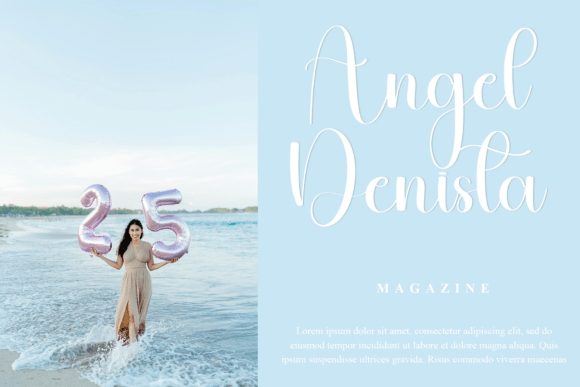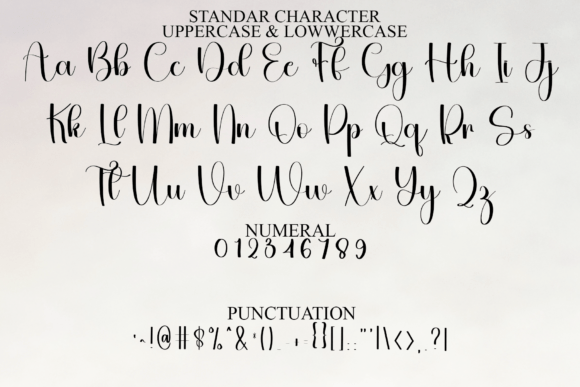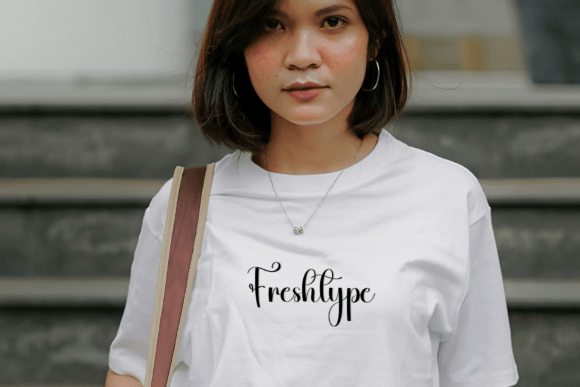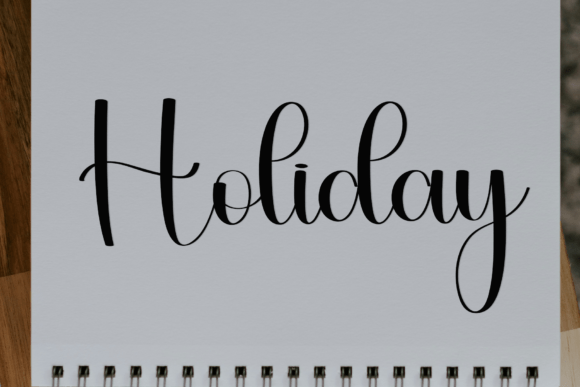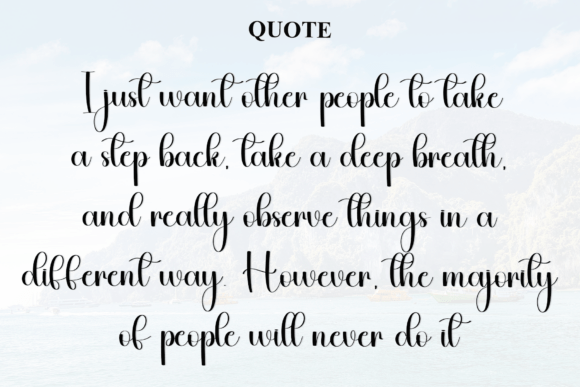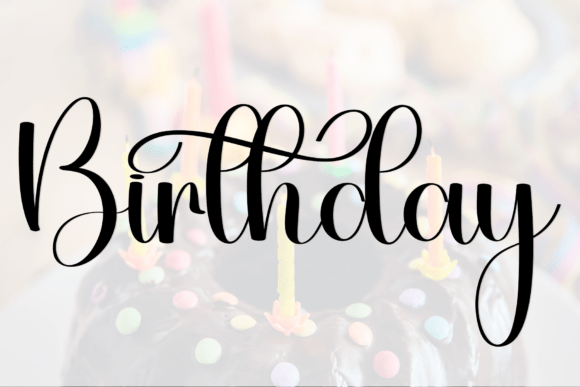
Introducing the Elegance of Birthday Western Font
In the world of typography, few fonts manage to capture the essence of elegance and sophistication as effectively as the Birthday Western Font. This beautiful script font is meticulously designed with graceful swashes and fluid strokes, bringing a touch of luxury to every word it writes. Whether you’re working on wedding invitations, crafting a brand identity, designing a logo, or curating social media posts, this font is sure to elevate your project with its unique blend of modern calligraphy and classic charm.
The Characteristics of Birthday Western Font
So, what makes the Birthday Western Font stand out from the myriad of script fonts available today? The answer lies in its stylish swashes and fluid strokes. These elements add a romantic and artistic flair to any text, making it feel personal and luxurious. The fluidity of the strokes ensures that the text flows smoothly, creating a visually appealing reading experience. Meanwhile, the swashes provide a decorative touch that can be customized to fit the tone and style of your project.
The versatility of the Birthday Western Font is one of its most compelling features. It’s perfect for:
- Wedding Invitations: Add a touch of elegance and romance to your wedding invitations, setting the tone for a sophisticated and memorable event.
- Branding and Logos: Elevate your brand with a luxurious and distinctive font that captures the essence of your business.
- Social Media Posts: Stand out on social media with beautifully crafted text that draws the eye and engages the reader.
- Stationery and Greeting Cards: Add a personal touch to your stationery and greeting cards, making them feel more special and heartfelt.
Blending Modern Calligraphy with Classic Charm
The Birthday Western Font achieves a remarkable balance between modern calligraphy and classic charm. The modern calligraphic elements ensure that the font feels contemporary and fresh, while the classic charm provides a timeless quality that prevents it from feeling trendy or dated. This balance makes the font incredibly versatile, suitable for projects that require a touch of sophistication and elegance.
Tips for Using Birthday Western Font Effectively
To make the most of the Birthday Western Font, consider the following tips:
- Pair with Simpler Fonts: For body text, pair the Birthday Western Font with a simpler, sans-serif font to create visual contrast and ensure readability.
- Adjust Swashes: Don’t be afraid to adjust the swashes to fit the tone of your project. Removing or adding swashes can significantly change the feel of your text.
- Use for Headlines: The Birthday Western Font is perfect for headlines and titles, where its elegant and sophisticated feel can be fully appreciated.
The Birthday Western Font is a stunning script font that brings a touch of sophistication and elegance to any project. With its graceful swashes, fluid strokes, and perfect blend of modern calligraphy and classic charm, it’s an excellent choice for designers and crafters looking to add a luxurious feel to their work. Whether you’re creating wedding invitations, branding materials, logos, or social media posts, this font is sure to impress. So, why settle for ordinary when you can make your text feel personal and luxurious with the Birthday Western Font?
Get Creative with Birthday Western Font